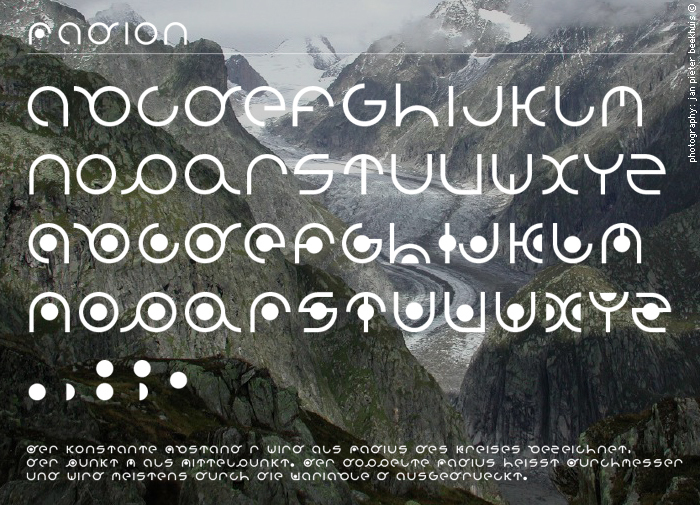
Radion by Marc Beekhuis is a free geometric sans serif built from clean, near-monoline strokes and broad circular forms. Its lowercase letters have generous proportions, with open shapes and smoothly joined curves. The result is spare and distinctly futuristic.
Circular icons and orbital graphics echo the repeated round geometry in science and technology branding. That precision also suits electronic music artwork, posters, and digital interfaces. Across these uses, continuous curves link the type to diagrams, signals, and machine imagery.